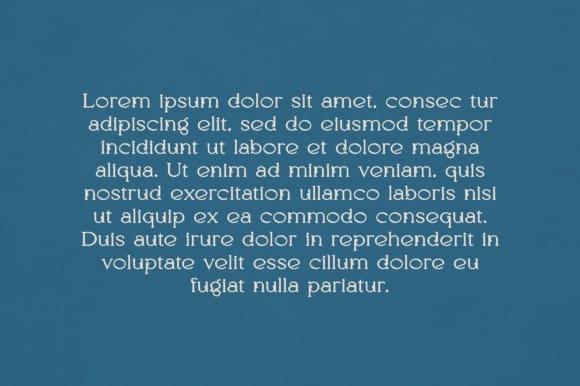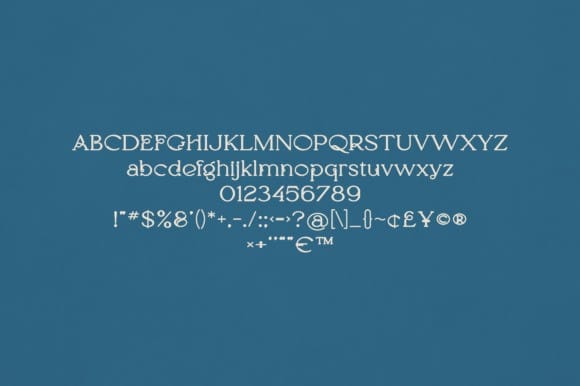
Sorin Font
Sorin Font is an elegant and versatile font that will make your typography truly unique! It will enchant every logo, branding, headline, or plain text!